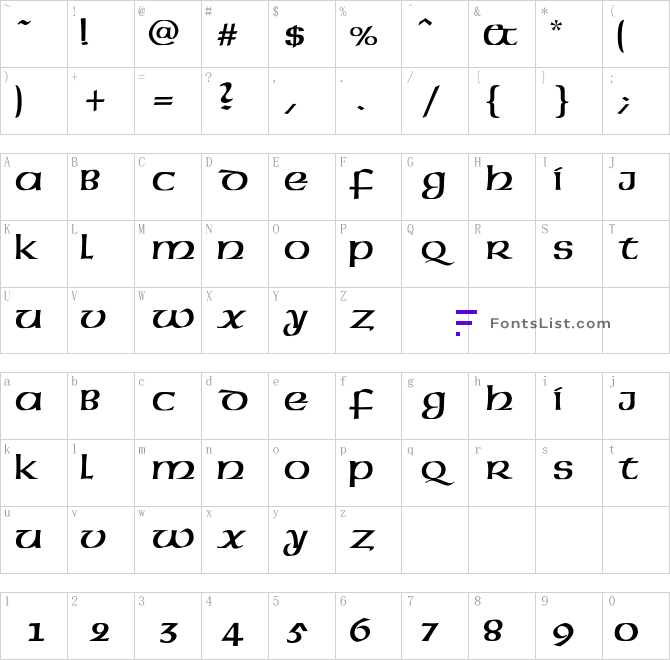
American-Uncial-Normal.ttf is a very beautiful artistic font, American-Uncial-Normal.ttf is widely used in the design and printing of various books and pictures,American-Uncial-Normal.ttf has a strong visual impact,American-Uncial-Normal.ttf is a commonly used font in newspapers, magazines and books, and is used in posters, e-commerce Poster design, store design, logo design, font design and other fields.American-Uncial-Normal.